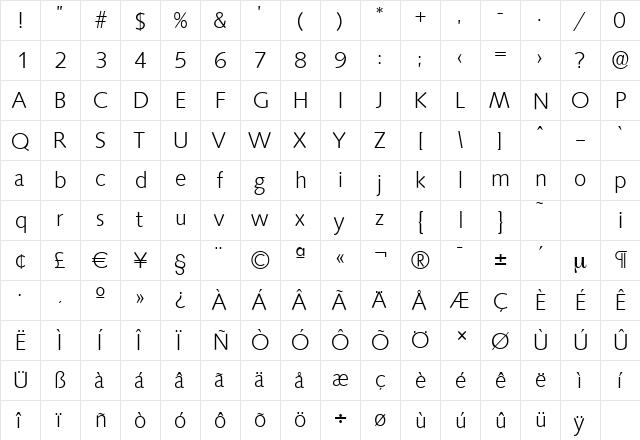
SaxonySerial-Light Regular
Design Context for SaxonySerial-Light Typeface
SaxonySerial-Light is a composed and adaptable typeface that performs quietly and consistently across a wide range of design contexts. The delicate stroke weight brings airiness and refinement to layouts.